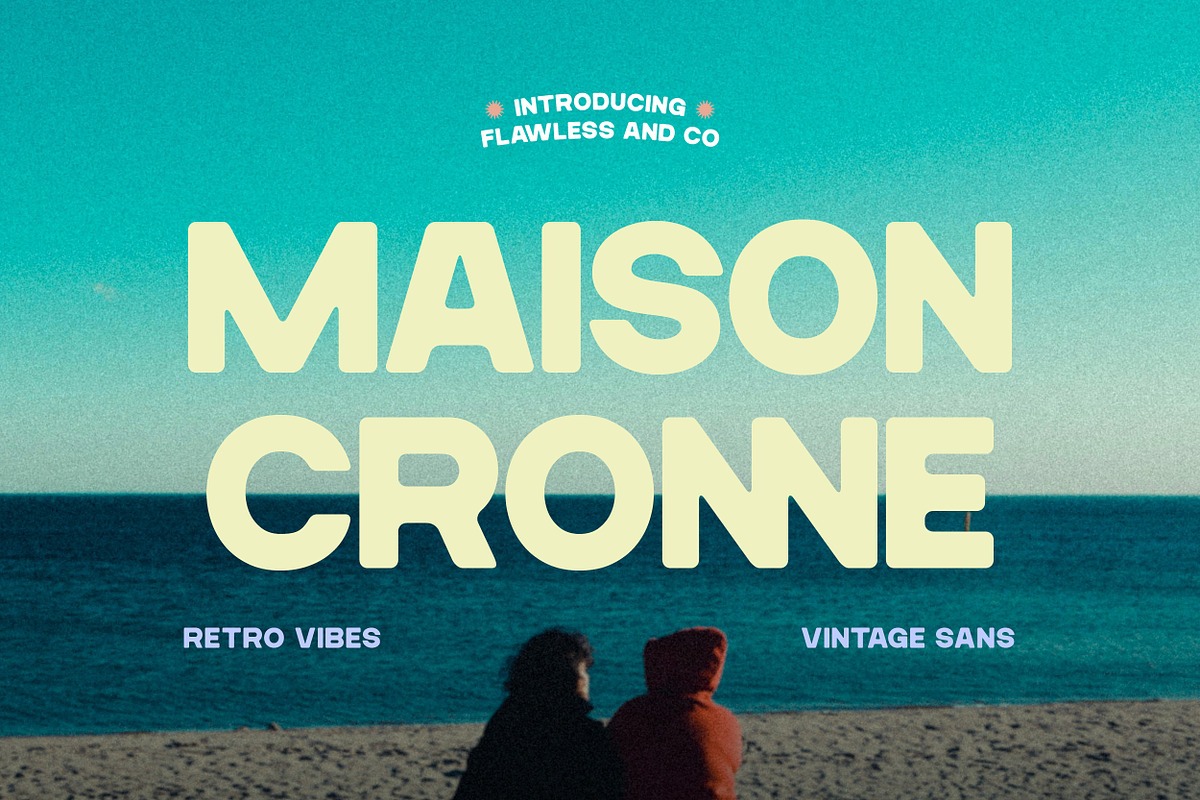
Maison Cronne – Retro Sans Serif Font
Maison Cronne – Retro Sans Serif Font is a clean and thoughtfully built typeface that works seamlessly for both professional branding and everyday creative uses. Maison Cronne is a modern retro sans serif typeface infused with strong vintage vibes and bold personality. Inspired by classic typography styles, it features rounded shapes and nostalgic details that create a warm and expressive visual feel. Its retro character is balanced with a clean contemporary structure, making it versatile for both playful and professional designs. Maison Cronne is perfect for creating eye-catching visuals that feel timeless, stylish, and full of charm.